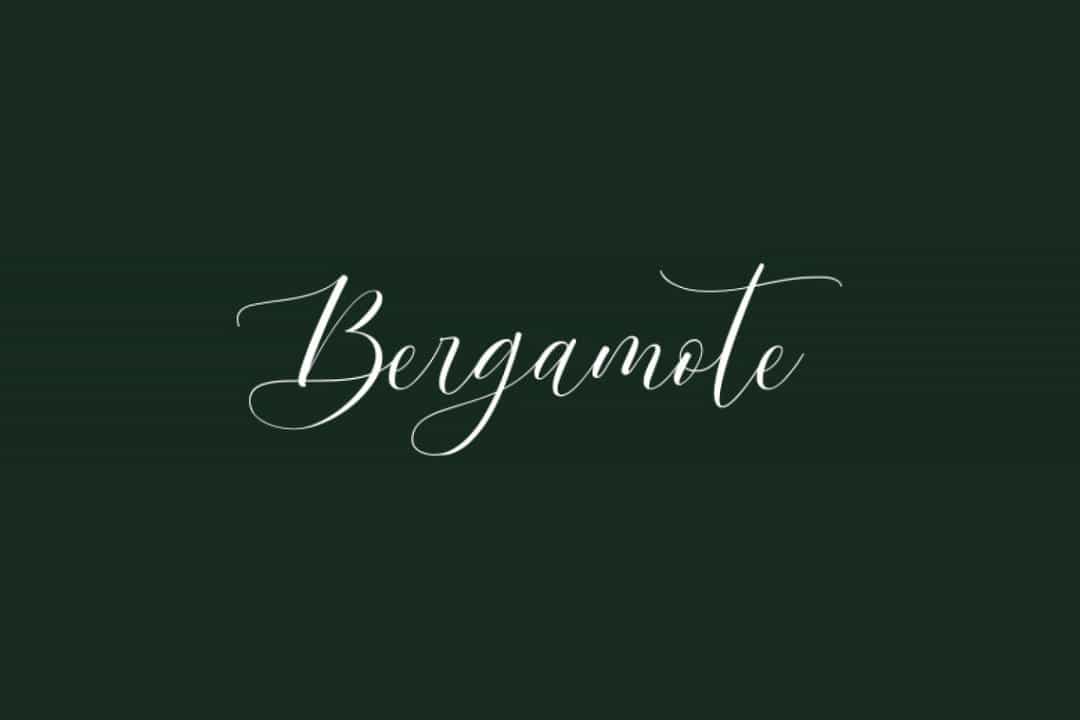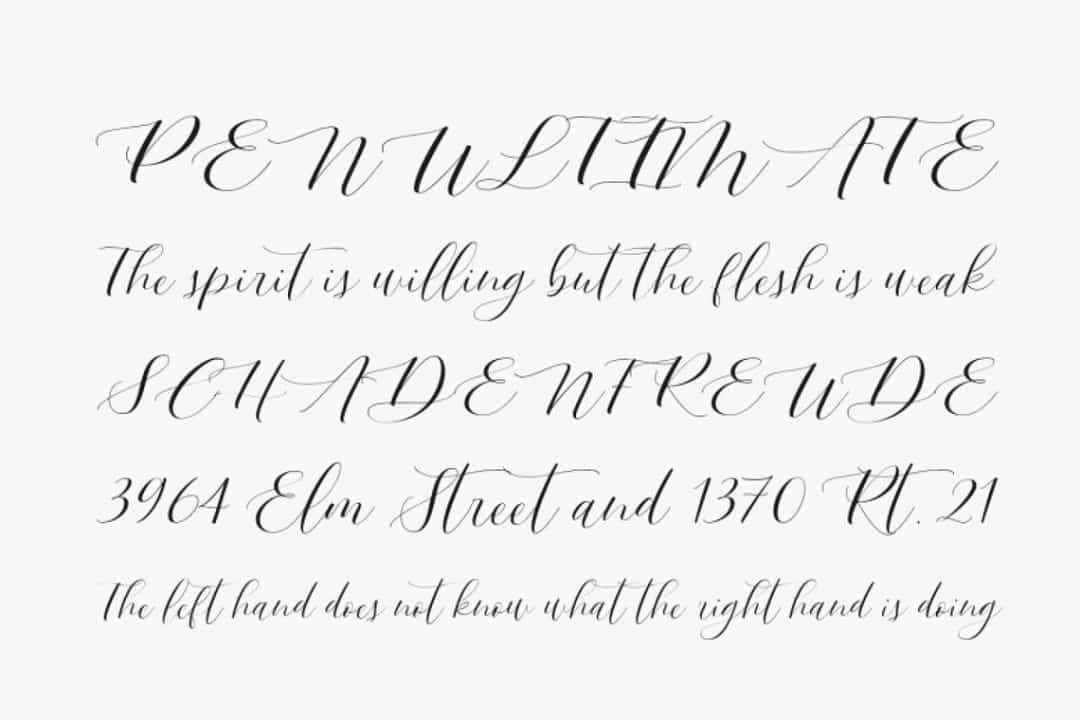
Bergamote is a gorgeous script typeface and would make an excellent addition to your font collection! Plus, its Open type feature provides additional creative freedom!